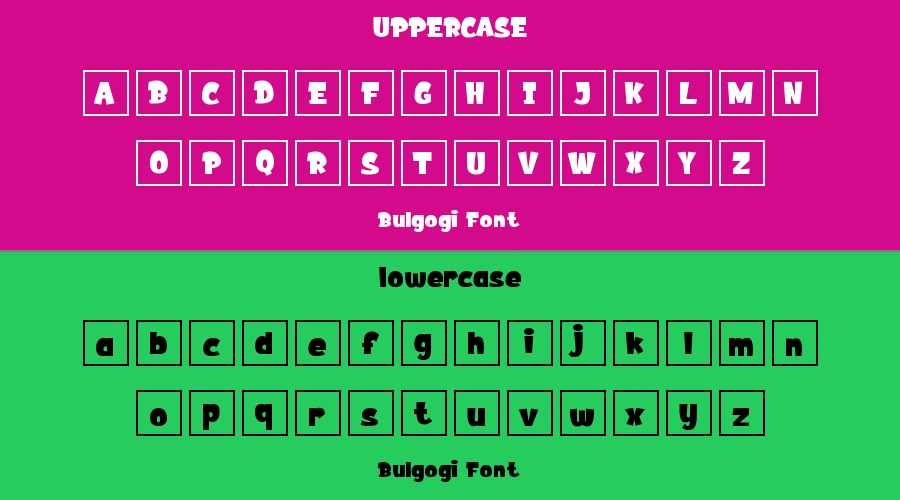
About Bulgogi Font
Bulgogi Font stands out for its distinctive combination of harmonious shapes and technical precision. Ideal for packaging hero, it provides the reliability and creative potential that professional projects demand. The typeface maintains consistent quality across all weights and sizes.
Key features include refined graceful transitions and practical careful spacing, enhancing typographic expression. In hero imagery applications, Bulgogi Font demonstrates exceptional numerical alignment. The counter size and design lineage contribute to its distinctive character and professional appeal.